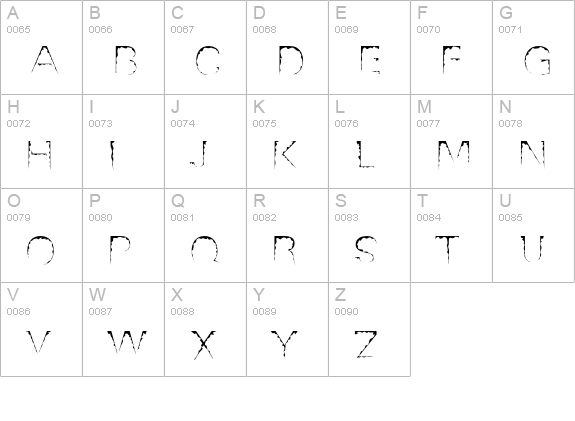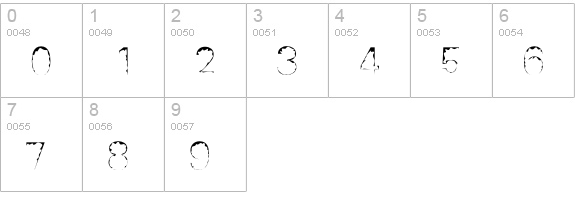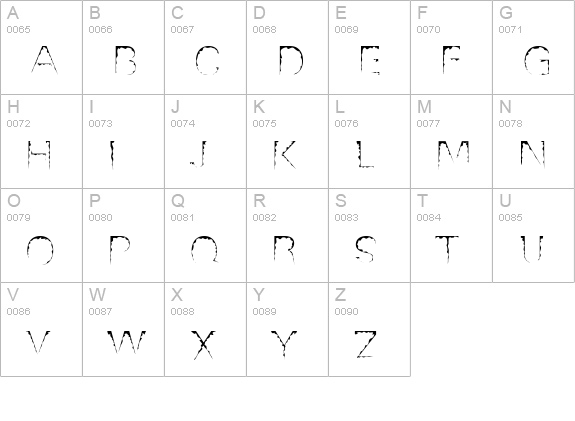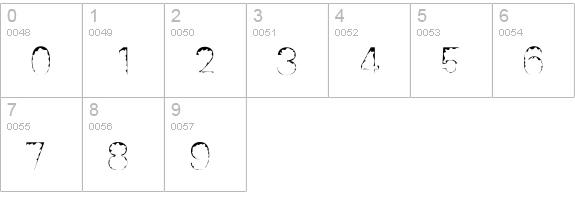
Dishonor Font Details
Dishonor font is a striking display typeface that exudes a sense of rebelliousness and edginess. Its sharp angles and bold lines make a powerful statement, perfect for projects that demand attention and make a lasting impression. Despite its bold appearance, Dishonor font offers a touch of elegance and sophistication, adding a unique flair to any design. The best part about Dishonor font? It's completely free to download at FontsMarket.com! Take advantage of this fantastic opportunity to enhance your projects with a font that is both eye-catching and versatile. Whether you're working on a poster, logo, or branding materials, Dishonor font is sure to give your designs a bold and impactful look. Download it today and let your creativity shine with this distinctive typeface.